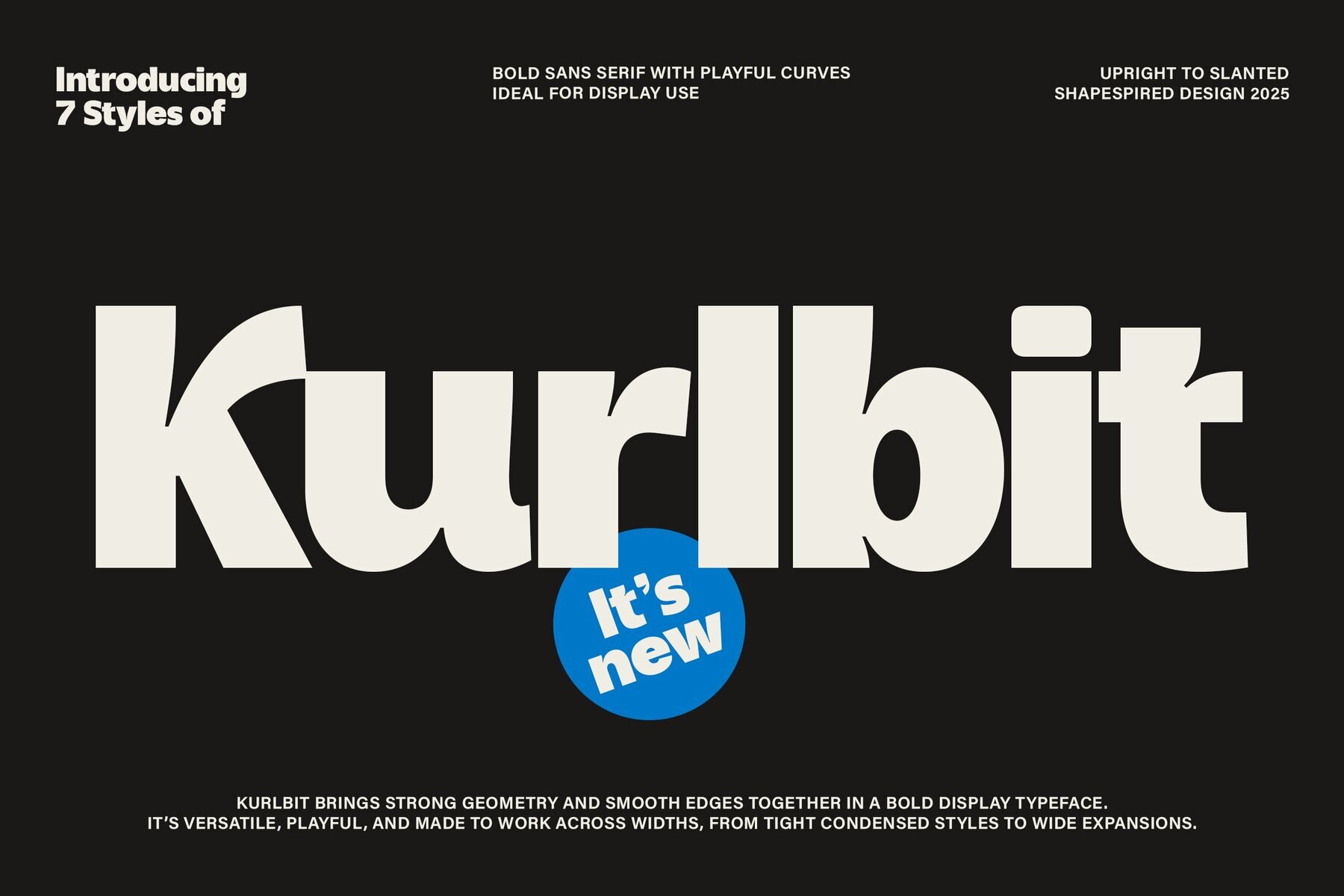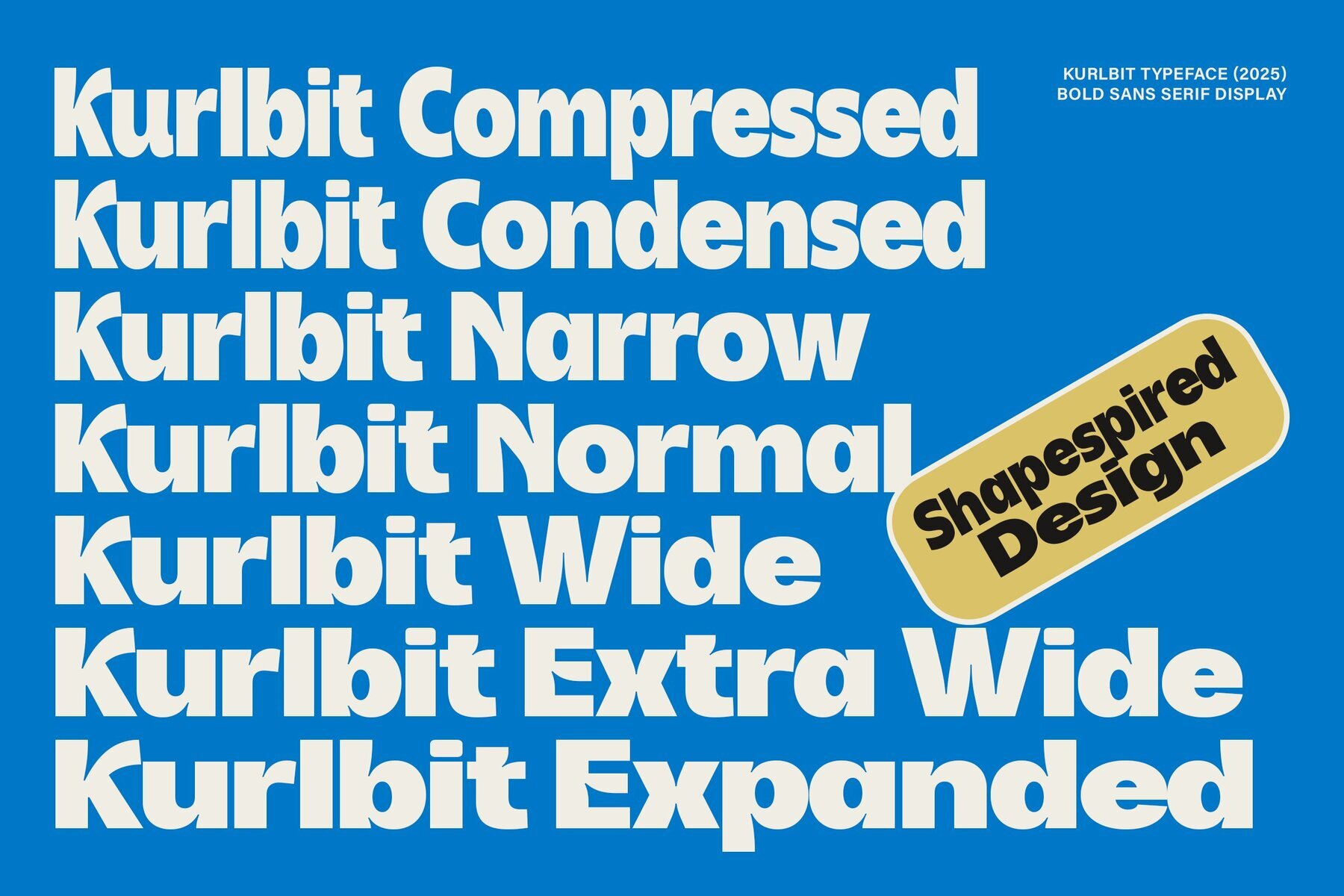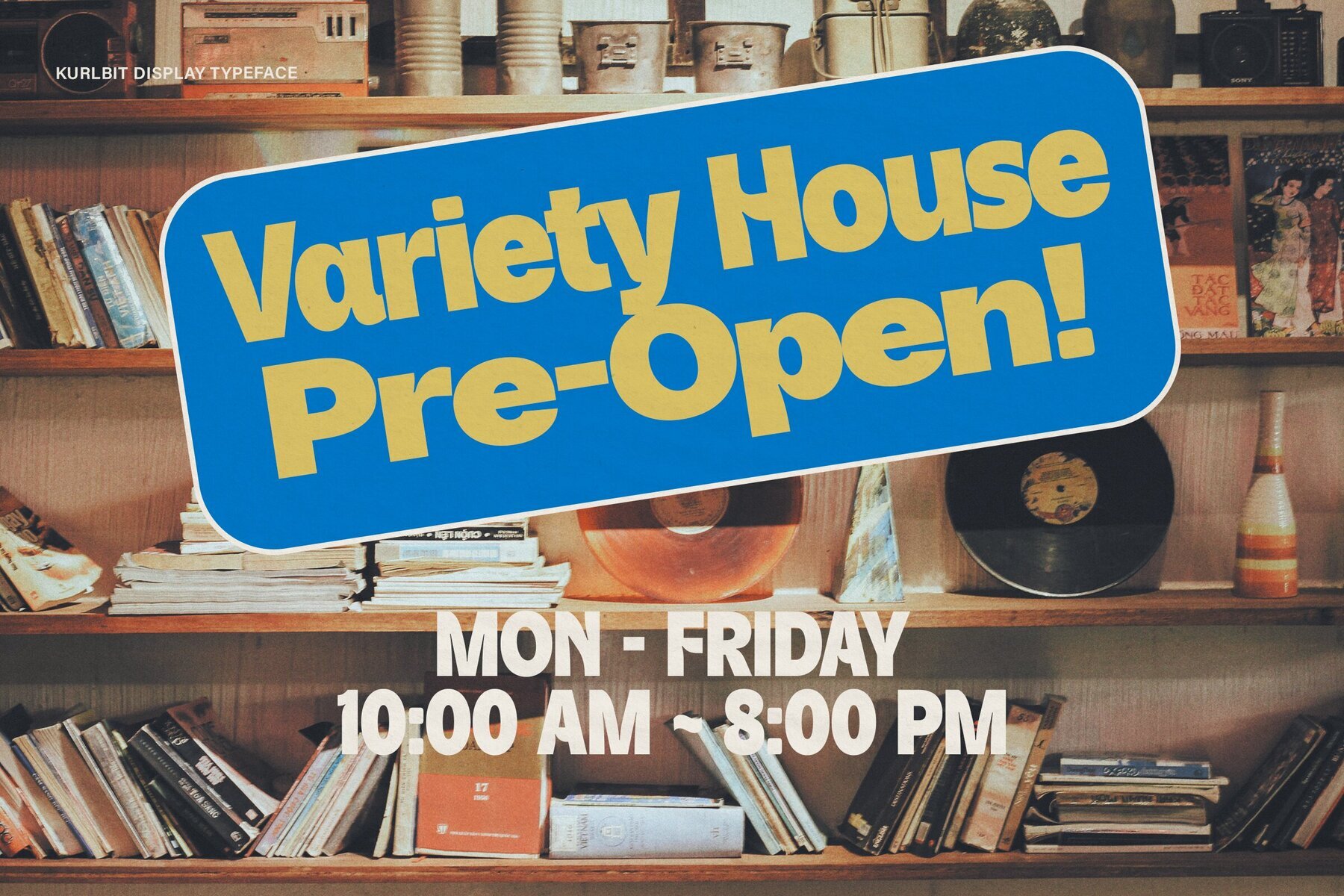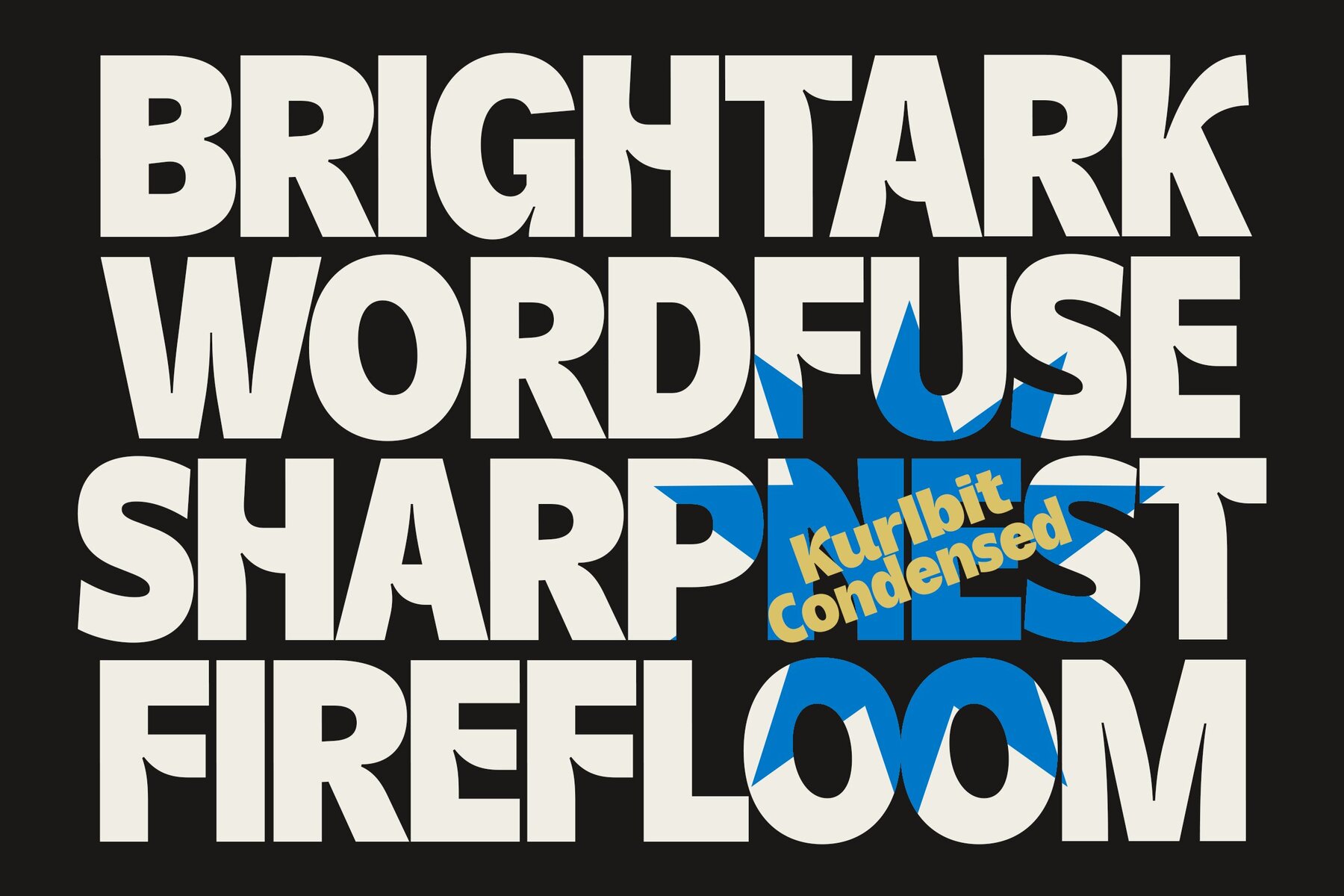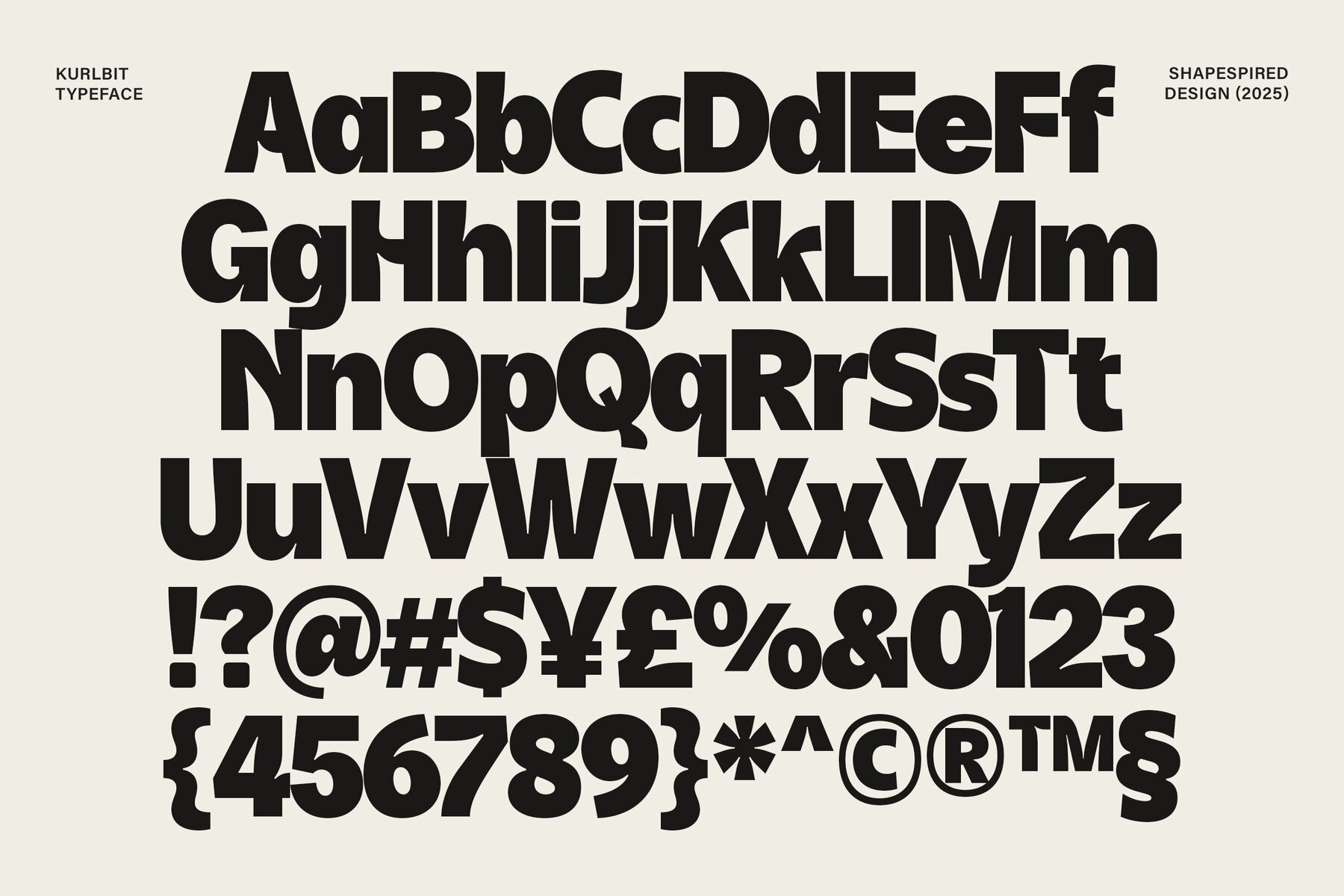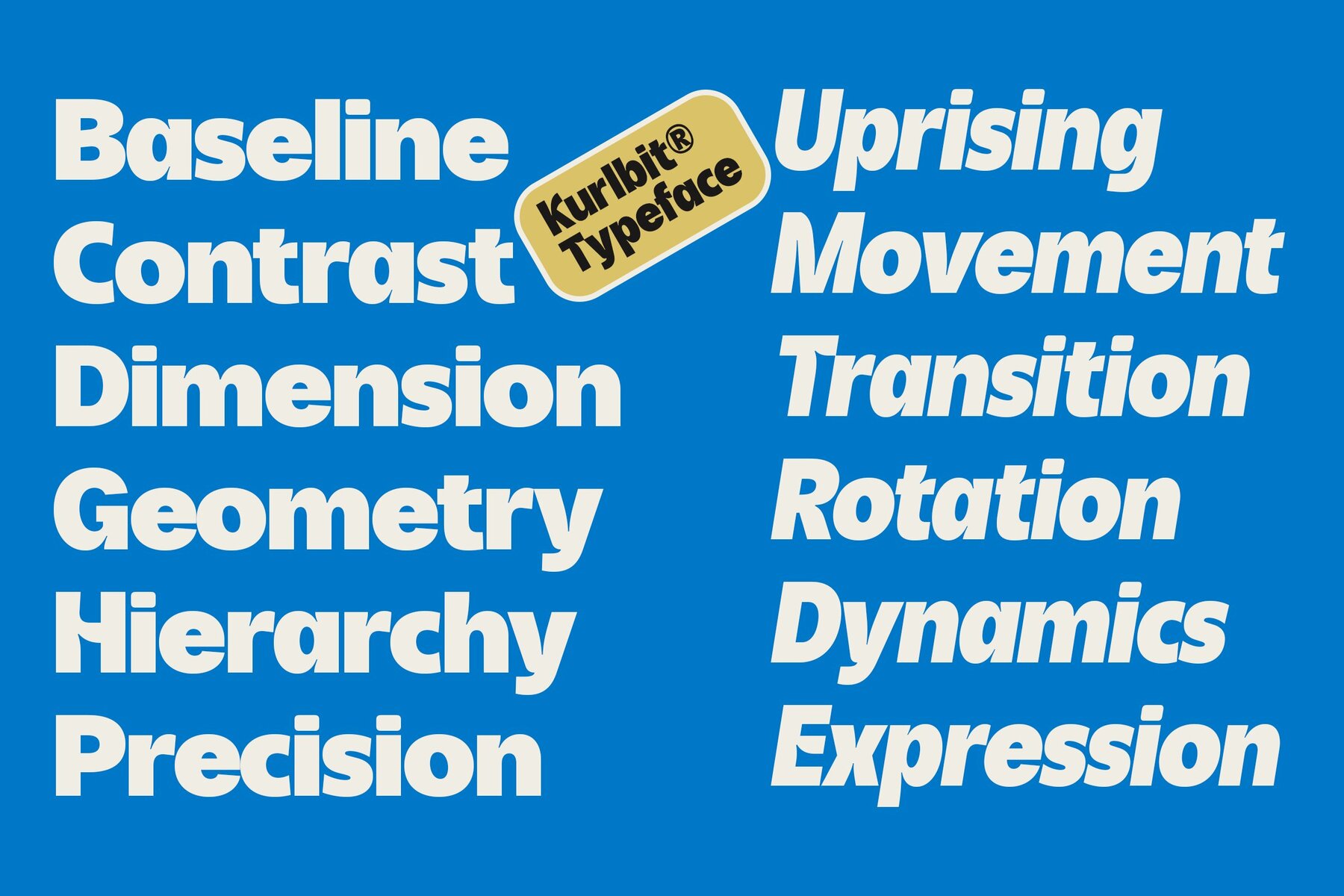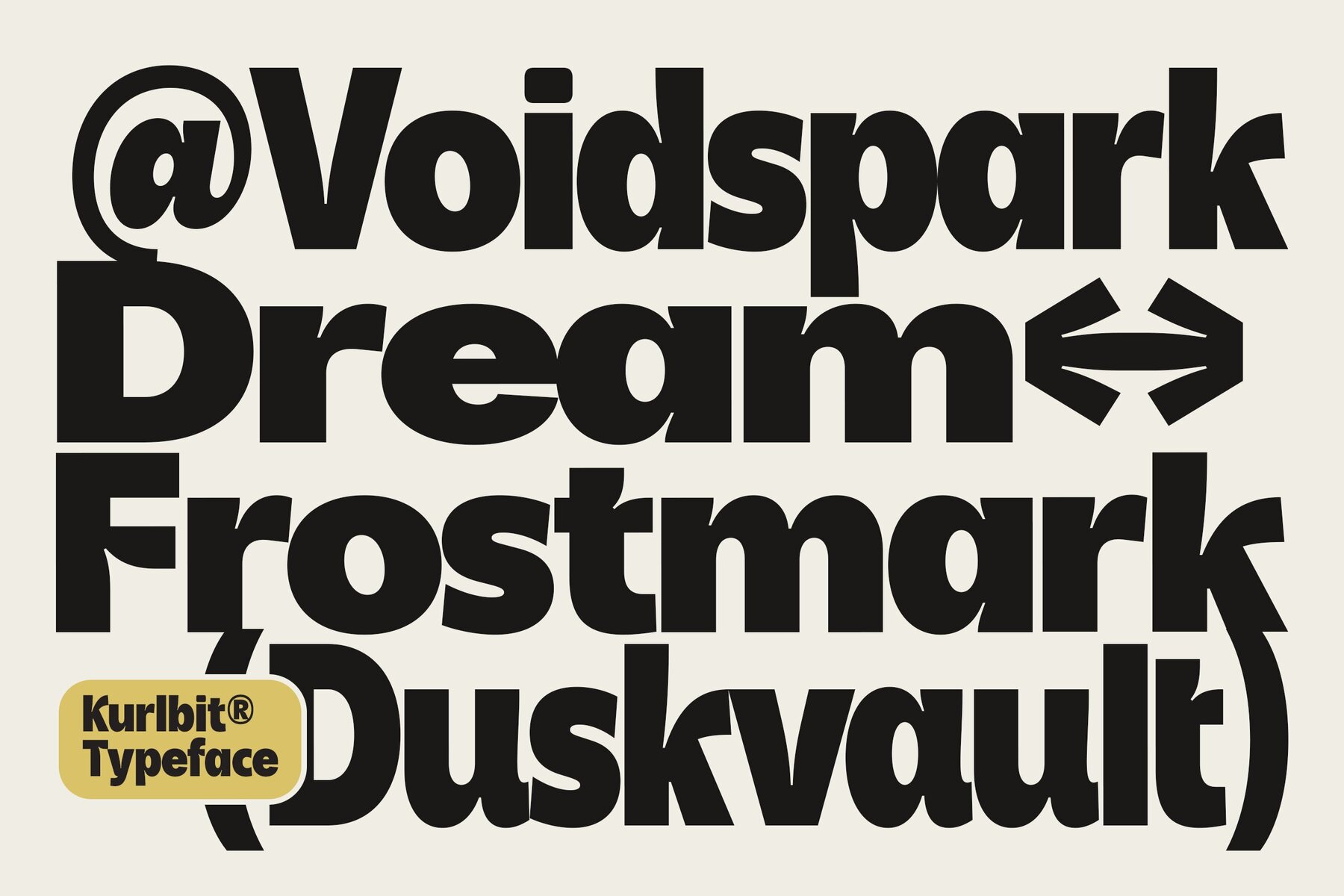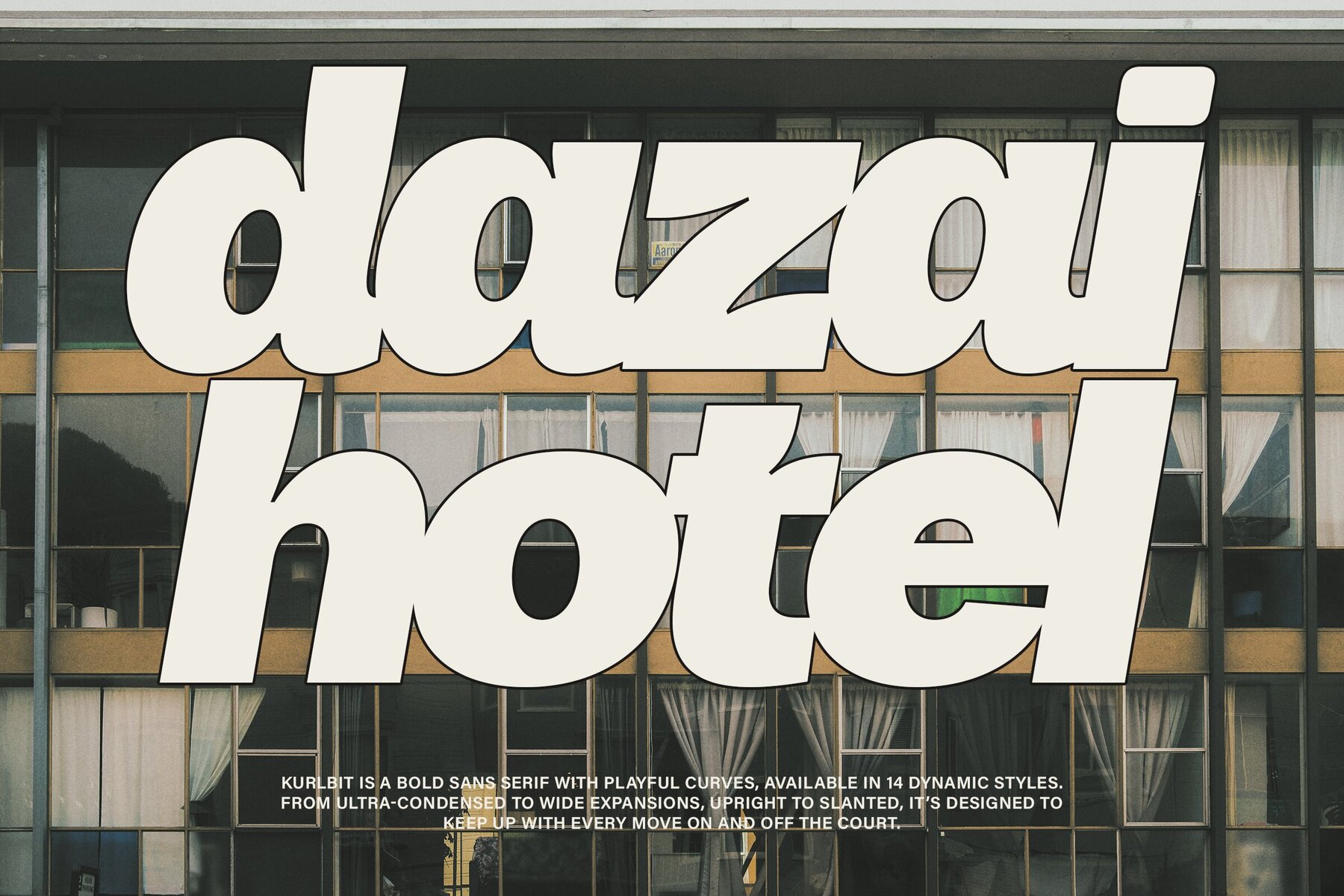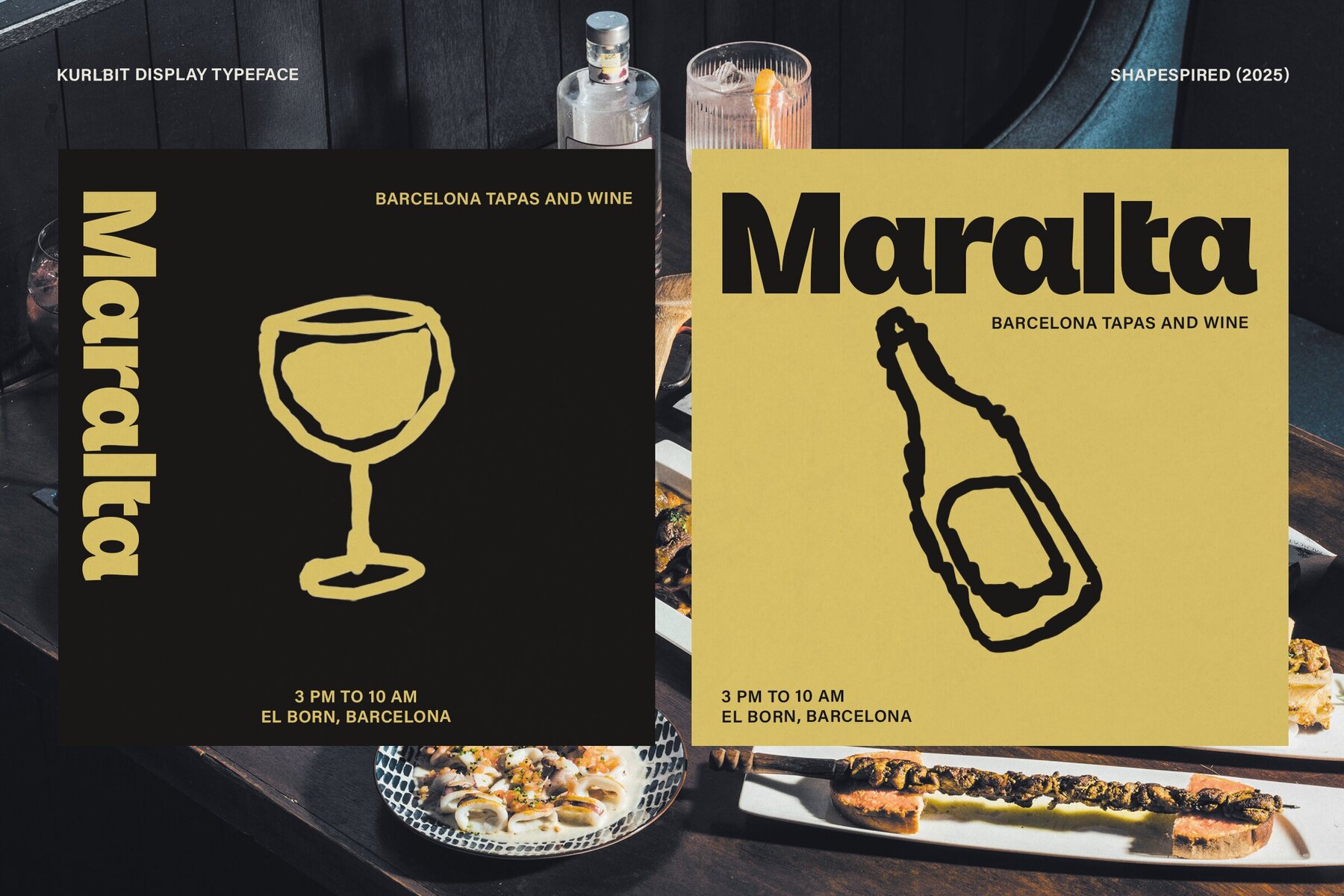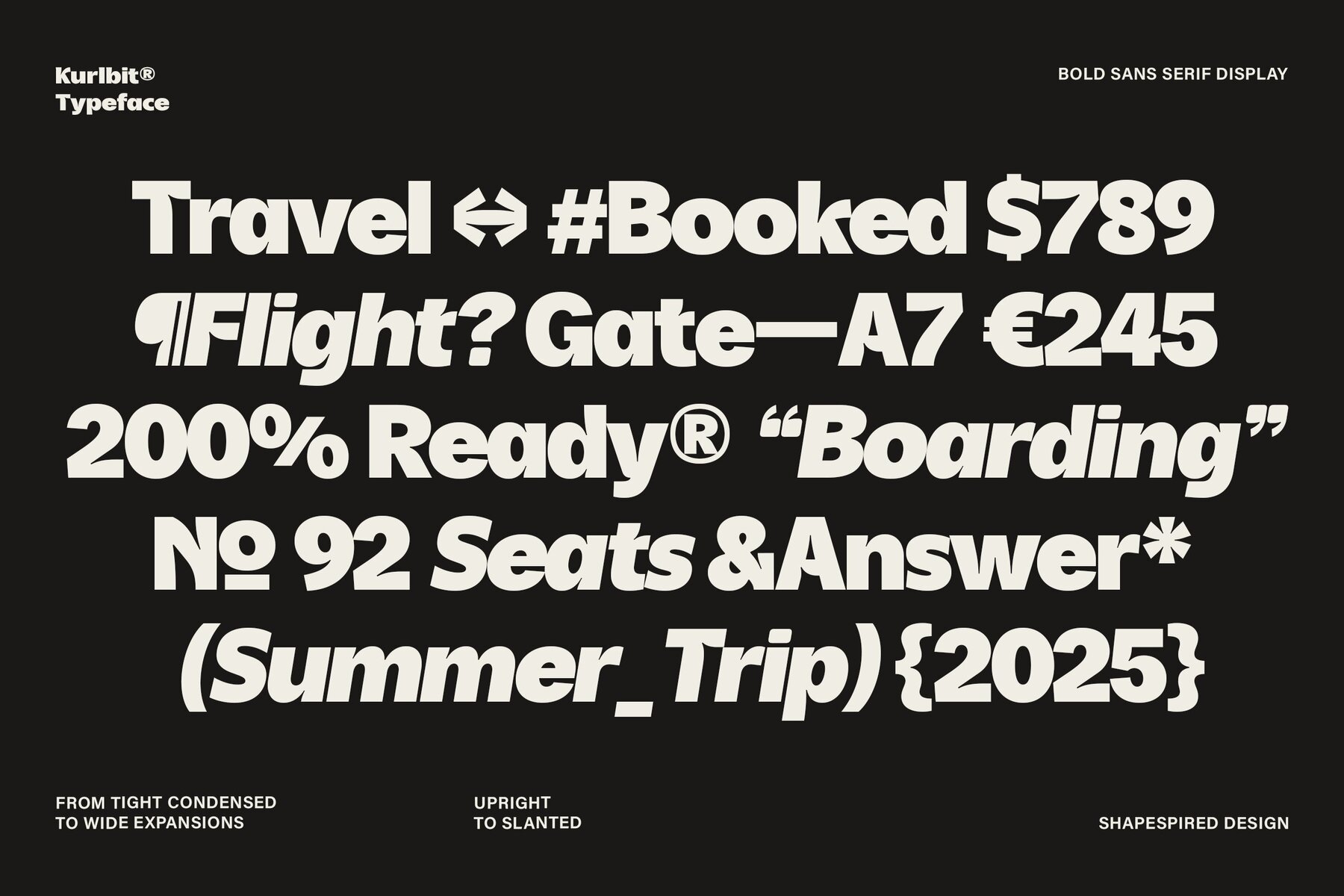
Kurlbit Font
Kurlbit is a sans serif display typeface meticulously crafted for creating a powerful visual impact. With a versatile range of 7 styles across various widths and slants, this typeface adapts seamlessly to projects that demand both strong hierarchy and flexibility. Whether you need condensed headlines or expansive wide layouts, Kurlbit provides clarity, consistency, and a touch of personality. Its geometric foundation ensures inherent strength and balance, while subtle curves introduce warmth and approachability, making it ideal for posters, branding, packaging, and digital media. This complete system equips designers with the tools to craft bold statements with confidence and precision. Features:Kurlbit: Bold Sans Serif Typeface for Impactful Design